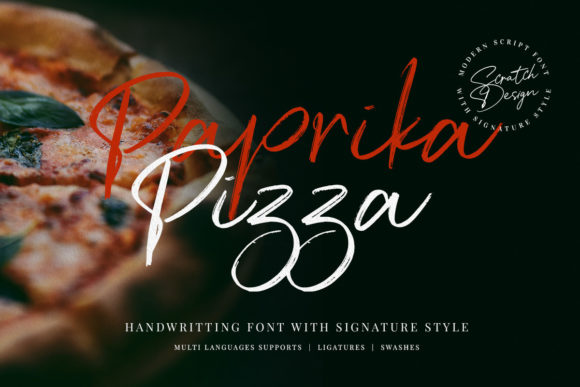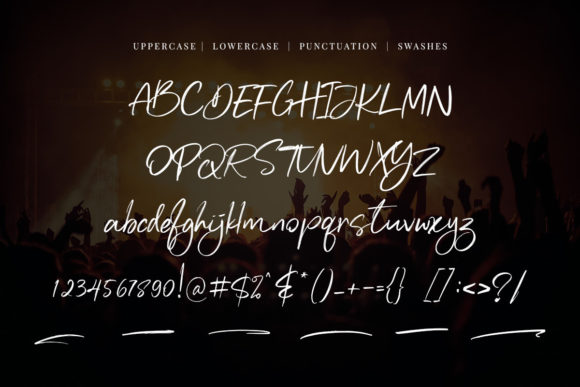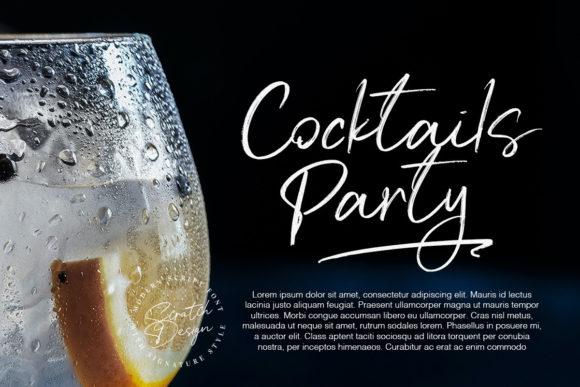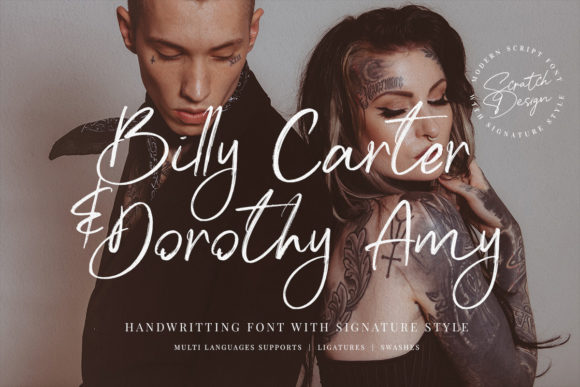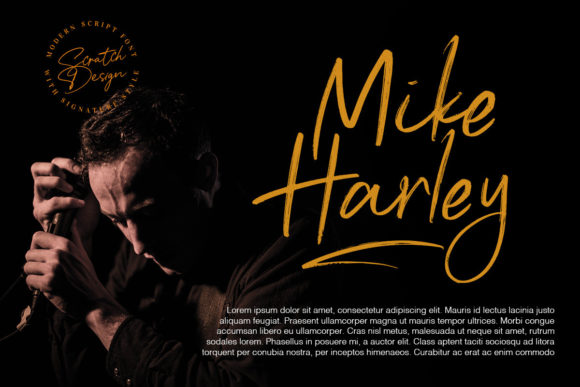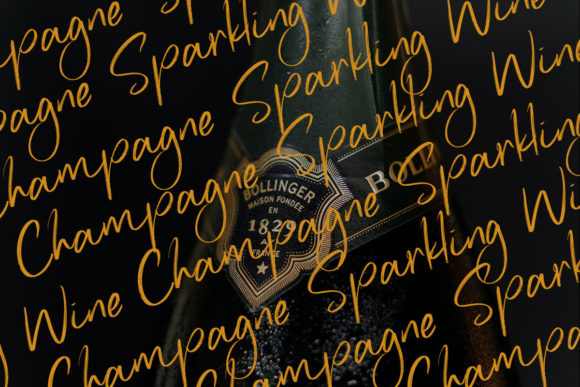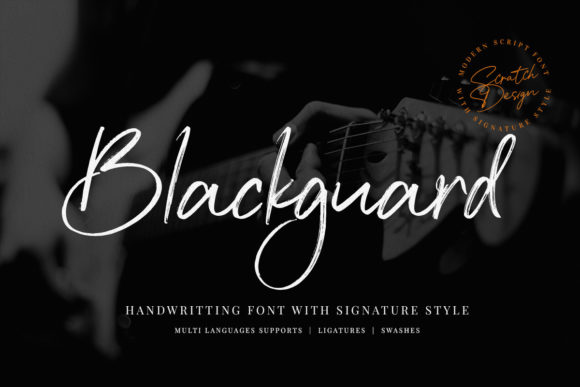
Unleash Your Creativity with Blackguard Font: A Modern Handwritten Style
In the world of typography, fonts play a crucial role in bringing designs to life. For designers, crafters, and creative enthusiasts, finding the perfect font can be a daunting task. However, if you’re looking for a modern and stylish handwritten font that can elevate your design concepts, look no further than Blackguard Font. In this article, we’ll dive into the features, benefits, and uses of Blackguard Font, and explore how it can add a touch of sophistication to your designs.
What is Blackguard Font?
Blackguard Font is a modern and stylish handwritten font that is designed to make a statement. Its unique and elegant style makes it perfect for a wide range of design applications, from branding and advertising to packaging and digital media. Whether you’re working on a colorful background or a minimalist design, Blackguard Font is sure to stand out and capture attention.
Key Features of Blackguard Font
- Modern and Stylish: Blackguard Font boasts a fresh and contemporary look that is sure to impress. Its stylish design makes it perfect for designers who want to add a touch of sophistication to their work.
- Handwritten Style: The font’s handwritten style gives it a personal and human touch, making it ideal for designs that require a more approachable and friendly feel.
- Versatile: Blackguard Font is incredibly versatile and can be used in a wide range of design applications, from headings and titles to body text and more.
- Easy to Read: Despite its stylish design, Blackguard Font is easy to read, making it perfect for use in both digital and print media.
Benefits of Using Blackguard Font
So, why should you choose Blackguard Font for your next design project? Here are just a few benefits of using this amazing font:
- Adds Visual Interest: Blackguard Font’s unique and stylish design adds visual interest to any design concept, making it perfect for designers who want to create eye-catching work.
- Enhances Brand Identity: With its modern and sophisticated look, Blackguard Font can help enhance your brand’s identity and make it stand out from the competition.
- Easy to Pair: Blackguard Font is easy to pair with other fonts, making it perfect for use in a wide range of design applications.
- Supports Multiple Languages: Blackguard Font supports multiple languages, making it a great choice for designers who work with international clients.
Using Blackguard Font in Your Designs
So, how can you use Blackguard Font in your designs? Here are a few ideas to get you started:
- Headlines and Titles: Use Blackguard Font as a headline or title font to add a touch of sophistication to your designs.
- Branding and Advertising: Use Blackguard Font in your branding and advertising materials to create a consistent and recognizable visual identity.
- Packaging Design: Use Blackguard Font on packaging designs to add a touch of elegance and sophistication.
- Digital Media: Use Blackguard Font in your digital media, such as social media graphics, website headers, and more.
Tips and Tricks for Working with Blackguard Font
Here are a few tips and tricks for working with Blackguard Font:
- Experiment with Colors: Blackguard Font looks great on colorful backgrounds, so don’t be afraid to experiment with different colors and combinations.
- Pair with Other Fonts: Blackguard Font is easy to pair with other fonts, so try pairing it with different fonts to create a unique and interesting look.
- Adjust Font Size: Adjust the font size to create visual interest and hierarchy in your designs.
| Font Name | Blackguard Font |
| Author | Scratch Design |
In conclusion, Blackguard Font is a modern and stylish handwritten font that is perfect for designers, crafters, and creative enthusiasts. Its unique and elegant design makes it perfect for a wide range of design applications, from branding and advertising to packaging and digital media. With its versatility, readability, and stylish design, Blackguard Font is sure to become a favorite in your font collection.